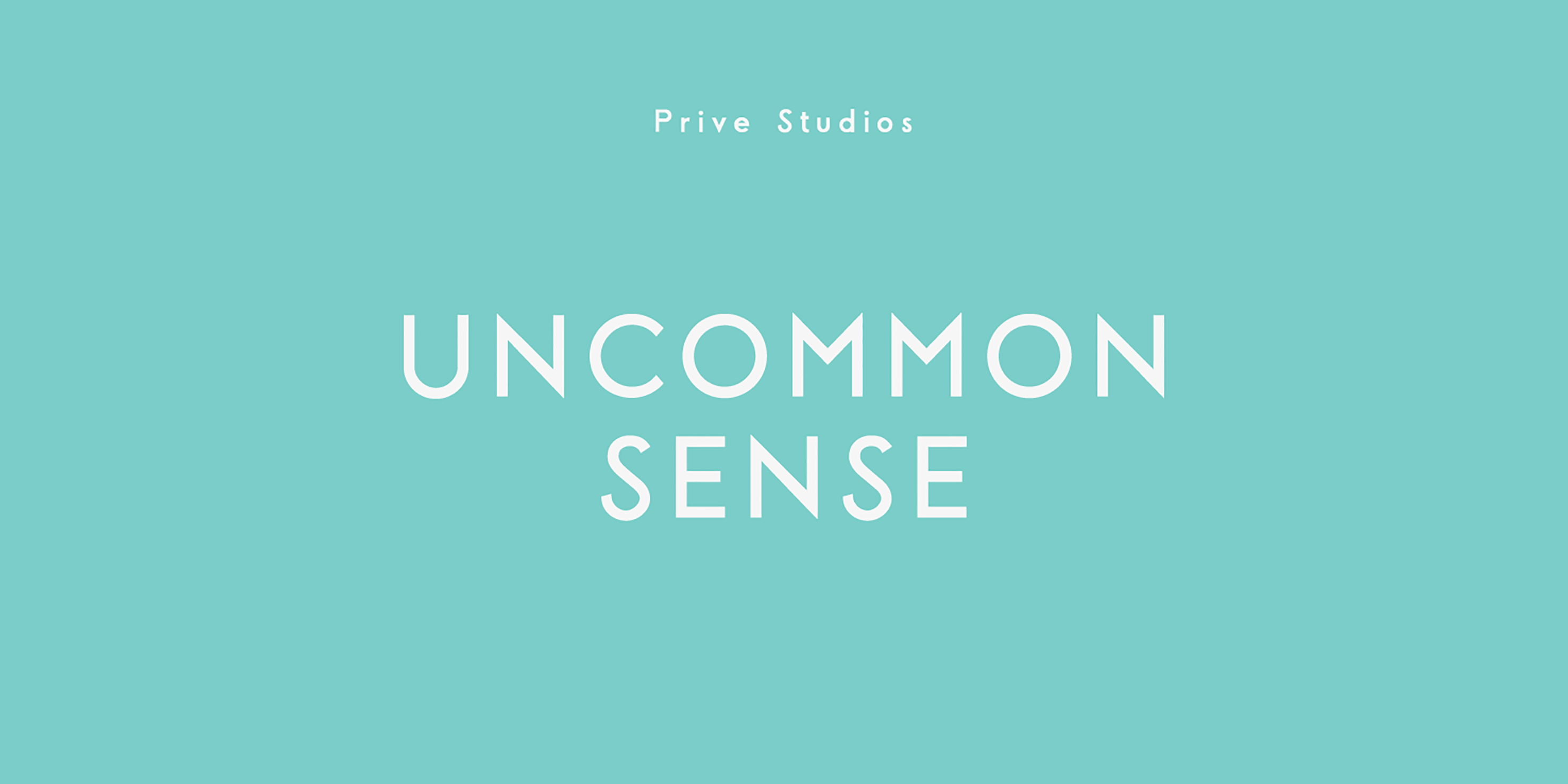
The Skin Font is excellent for organic beauty design projects including skincare product packaging, dermatology clinic branding, natural cosmetics marketing, beauty salon materials, wellness spa communications, organic beauty campaigns, therapeutic skincare labels, and health-conscious lifestyle brands. This smooth typeface brings natural beauty and skin-conscious sophistication to any design project emphasizing healthy skin care and organic beauty solutions.
What makes Skin Font so exciting is its perfect embodiment of natural skin health with smooth, organic-inspired letterforms that capture the essence of healthy skin texture and natural beauty care. The letters feature soft, flowing characteristics with skin-like smoothness that creates an immediate sense of natural wellness and beauty authenticity. This distinctive organic character makes it perfect for brands and projects that want to communicate skin health, natural beauty, and the appealing softness of organic skincare and wellness treatments.
The Skin Font family typically includes multiple weights from light to bold, complete with smooth variations and beauty-inspired design elements. Many versions feature skincare symbols, wellness glyphs, and natural beauty elements that enhance its authenticity for dermatology and beauty applications.
Whether you're designing for skincare brands, beauty clinics, or wellness companies, Skin Font Free Download provides the perfect solution for projects that need to convey natural beauty and skin health expertise. This font transforms standard beauty communications into smooth designs that immediately communicate skincare excellence, natural wellness, and the gentle appeal of organic beauty solutions to audiences prioritizing healthy skin care and natural beauty treatments.